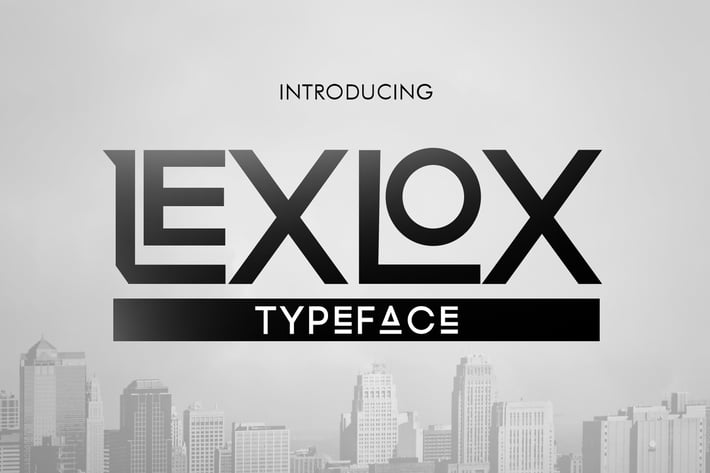
Lexlox Font
Introducing Lexlox Font – a font that is very fresh and unique, it’s perfect for logos, t-shirt, name card, magazine layouts, invitations, headers, or even large-scale artwork.